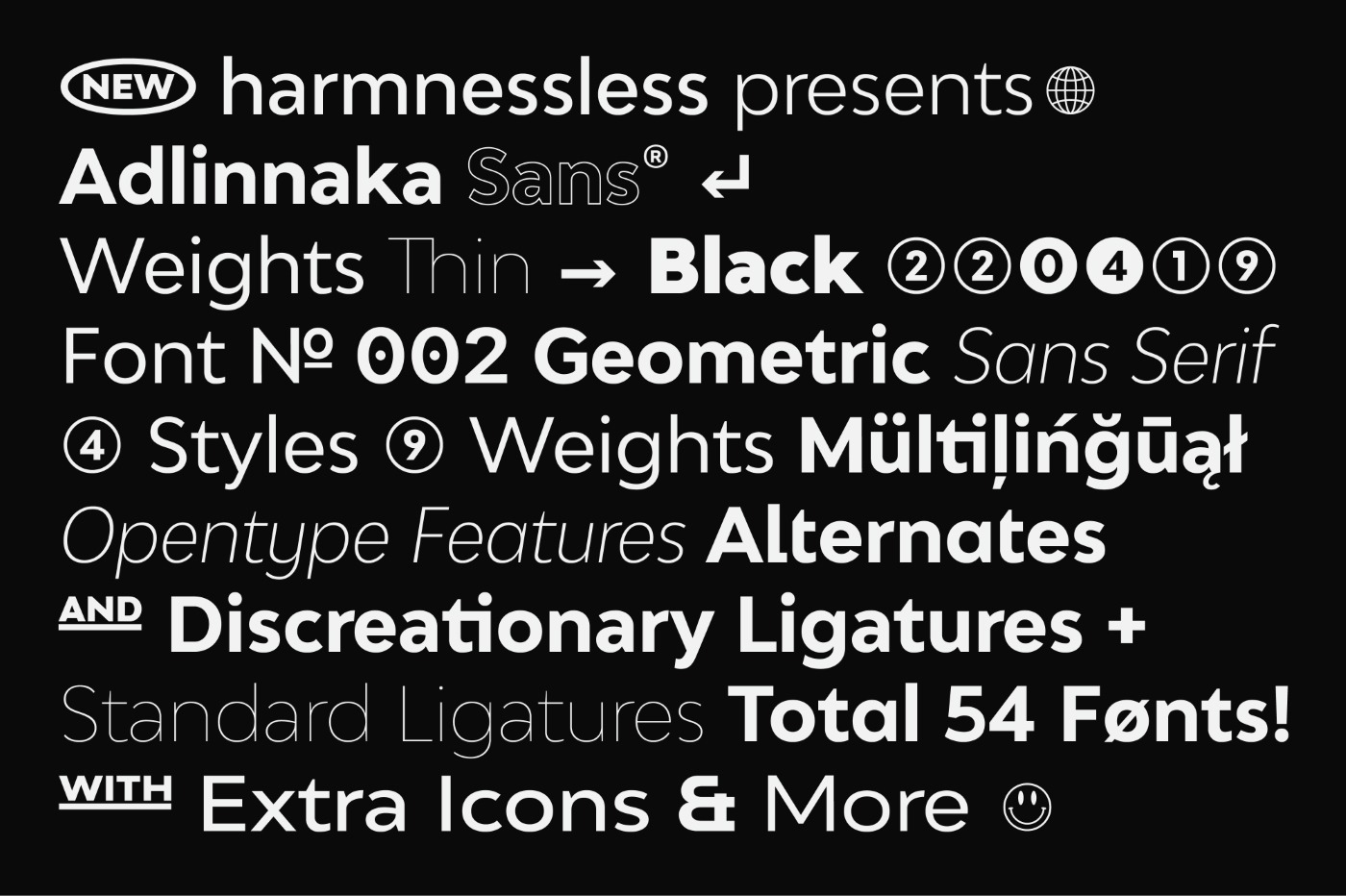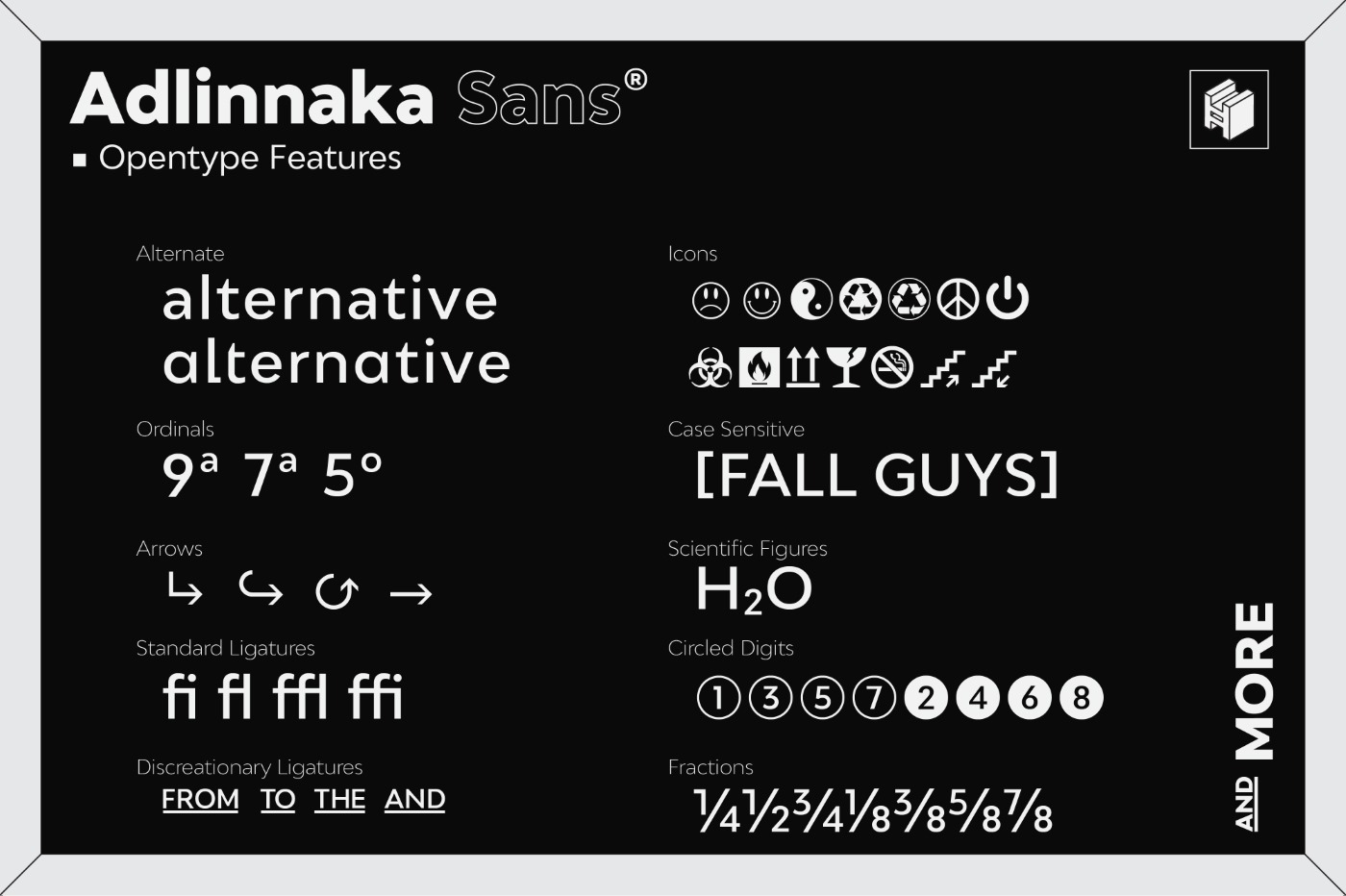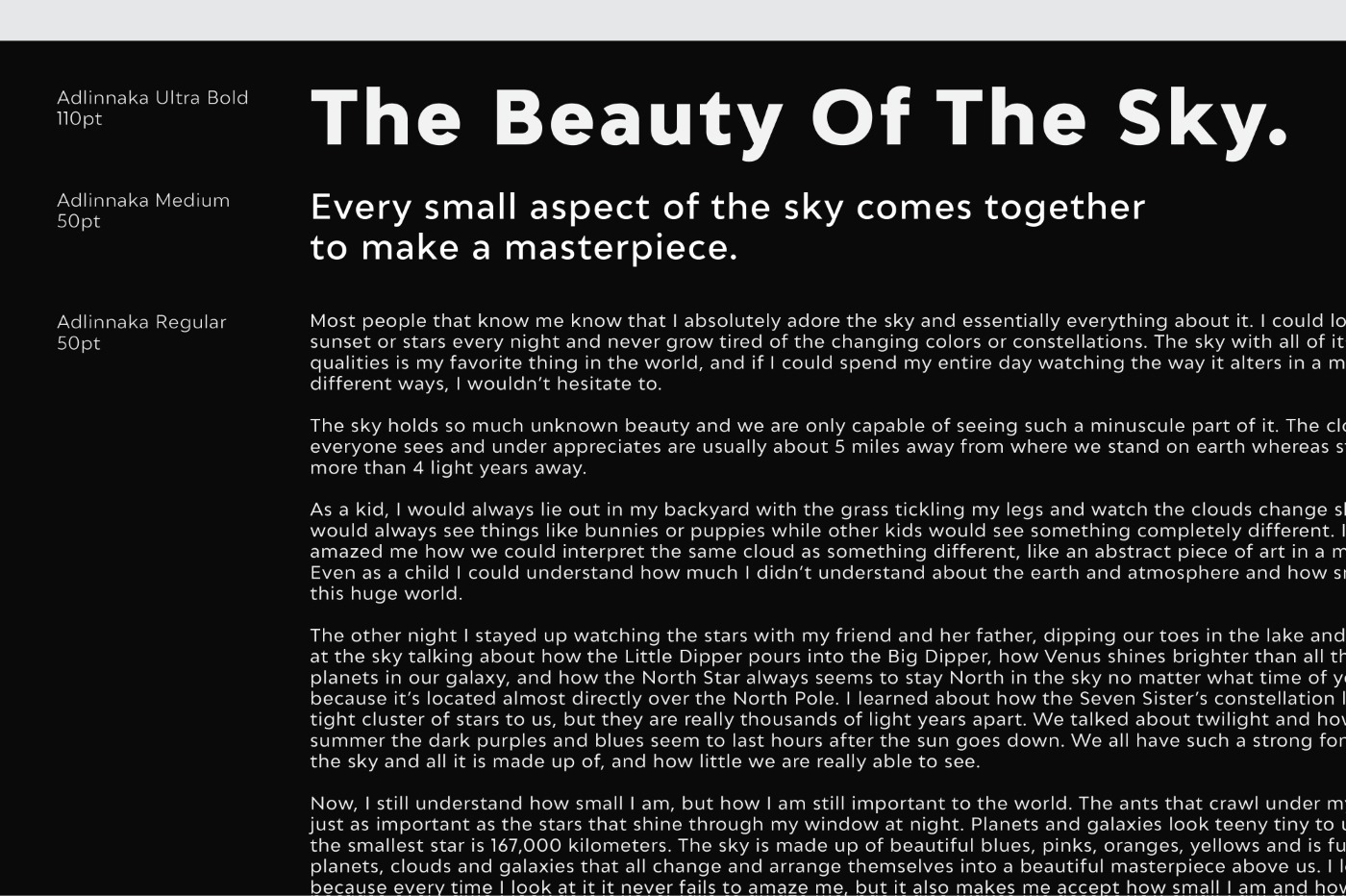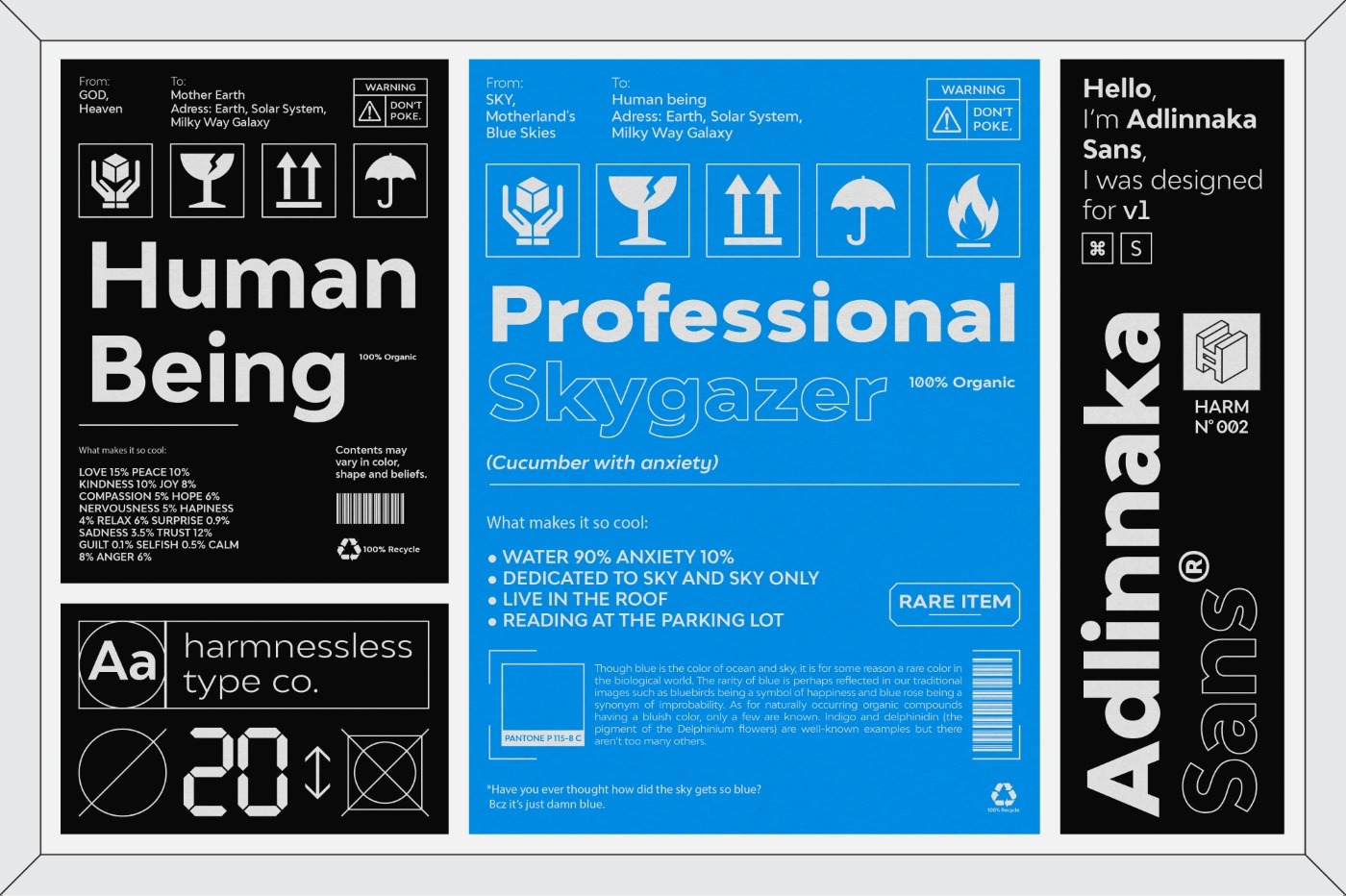
Adlinnaka Sans is a humanist geometric sans with sharp details and a distinctive arrangement, it further extends the limits of the x-height, providing unparalleled flexibility. With this deal you’ll receive the complete package of 54 font variations delivered in OTF & TTF file formats; Adlinnaka features high legibility and a variety of styles that make it a very competent face for both, display and body copy purposes.
The font includes 3 versions: normal, condensed and expanded as well as 9 weights ranging from thin to black, and matching italics